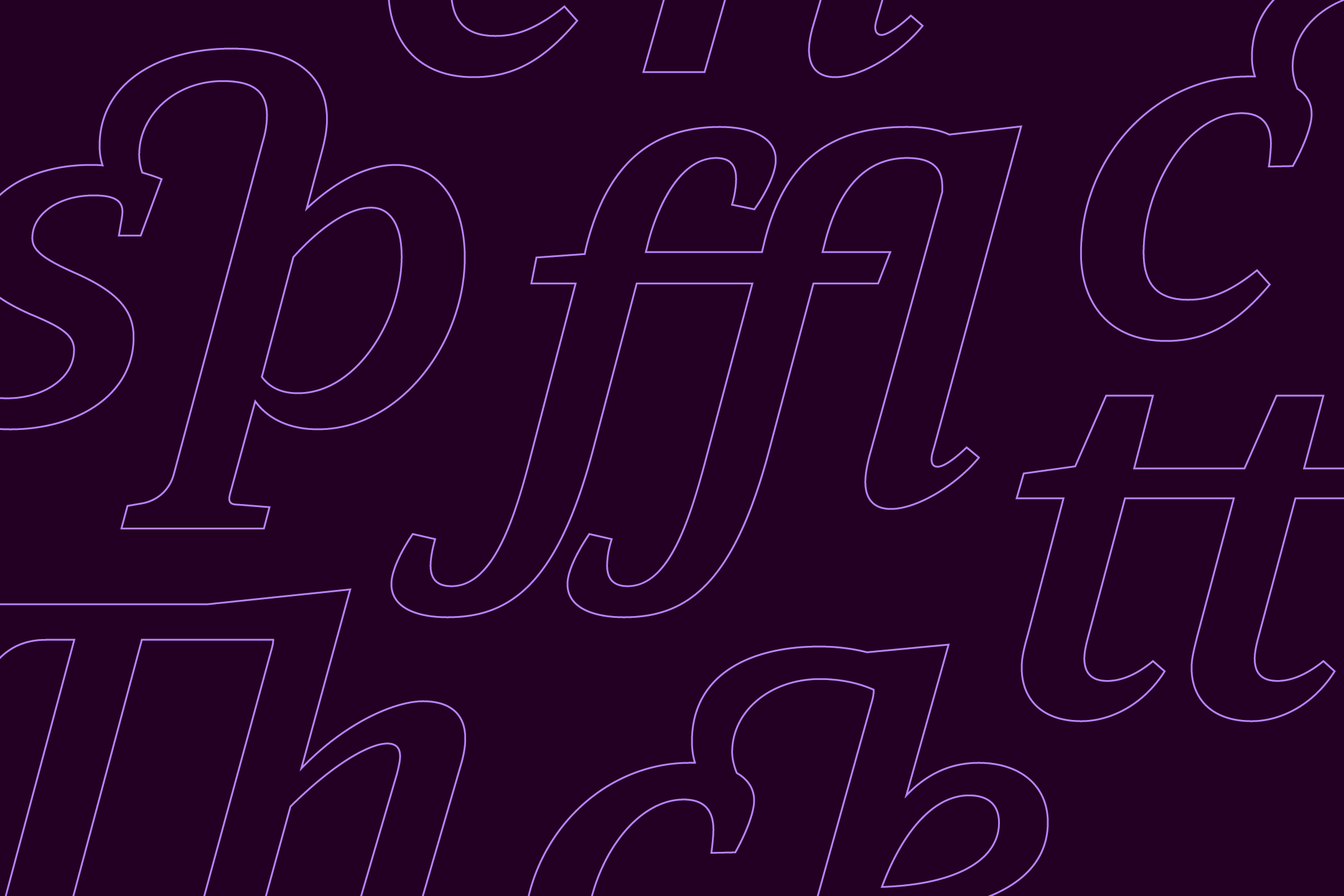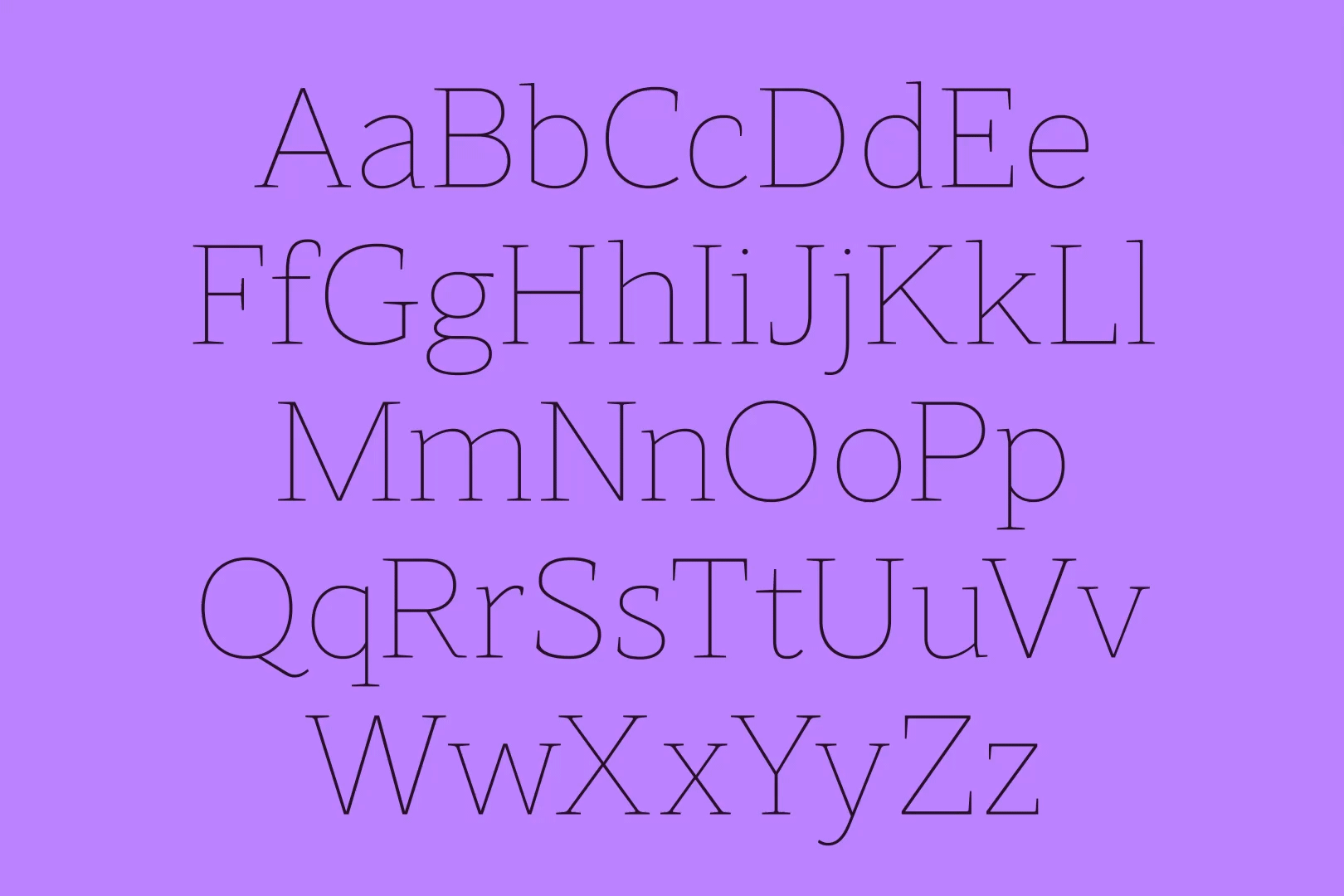
Leida is a well-refined serif type family that balances functionality with a cheerful personality. The design draws upon typographic experience, history and current technology to produce a typeface suitable for reading text in everyday scenarios. Letterforms are drafted directly within the application to benefit from the latest tool sets and help with line quality.
The font includes eight weights with true italics and over 900 characters per style. OpenType features consist of fourteen number variations, including inferiors, superiors, fractions, tabular, lining, circled, and oldstyle. It also has alternate lowercase a, e, g and y, small caps and language support covering Western, Southern, and Central Europe.